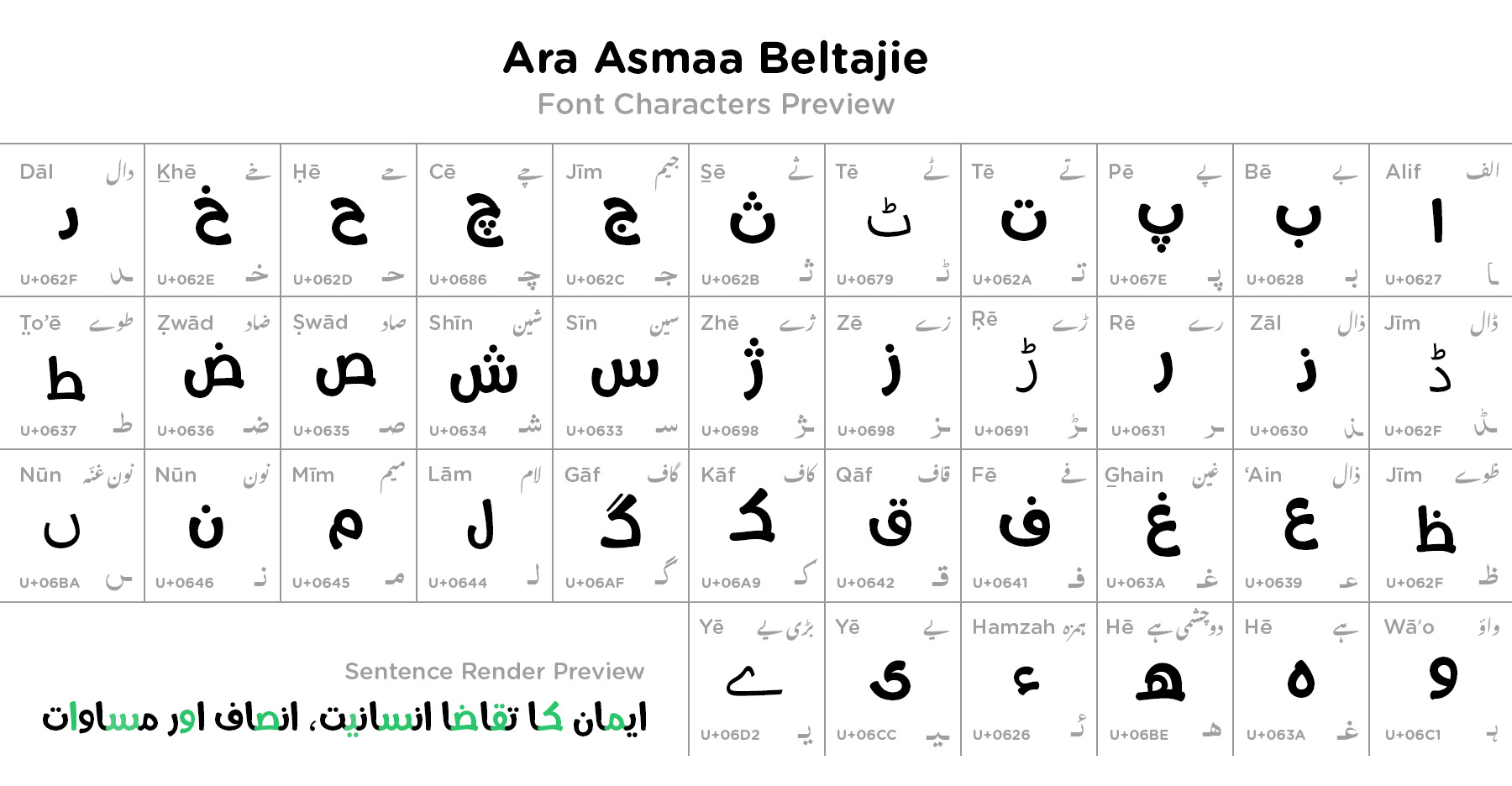
Ara Asmaa Beltajie is a bold and cartoon-style Arabic font renowned for its subtle roundness and irregularity, which collectively emulate a natural handwriting effect, setting it apart from traditional calligraphy fonts. Released on April 13, 2021, it represents a casual and creative option in the realm of Arabic typography, offering designers a versatile tool for expressive designs. Crafted by designer Yousef Rifa’ee from Egypt, this font boasts 277 characters and 290 glyphs, ensuring comprehensive language support for both Arabic and Latin scripts. With a bold font weight and medium width, the font exhibits a thick and inconsistent thickness throughout its letterforms, accompanied by solid strokes that contribute to its legibility.
Despite its irregularity, the font maintains high legibility, thanks to its filled letterforms and consistent spacing, making it suitable for various design applications. Its rounded corners and wide, curved edges bent inwards further enhance its playful and friendly appearance, making it particularly well-suited for short texts. Ideal for kids’ products and branding, book covers, posters, flyers, and more, Ara Asmaa Beltajie offers a vibrant and engaging visual aesthetic that captivates audiences of all ages. Its Unicode blocks cover Basic Latin, Arabic, Arabic Presentation Forms-A, and Arabic Presentation Forms-B, ensuring compatibility and ease of use across different platforms and applications.